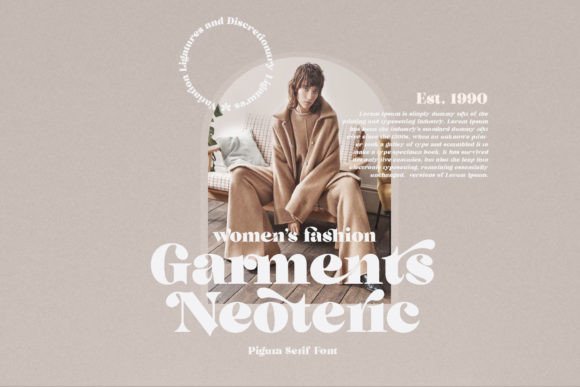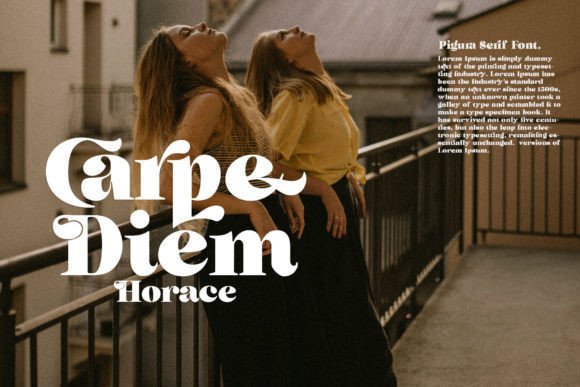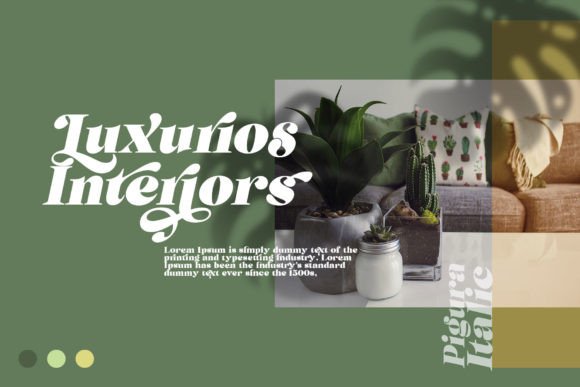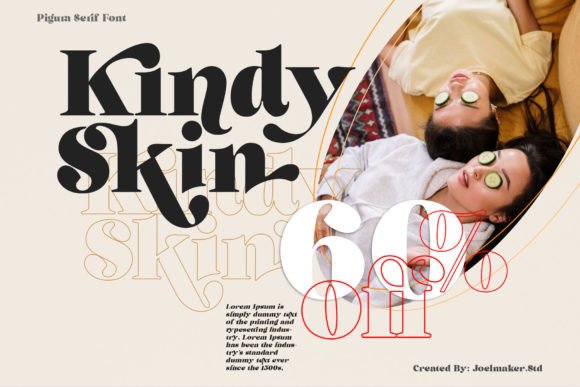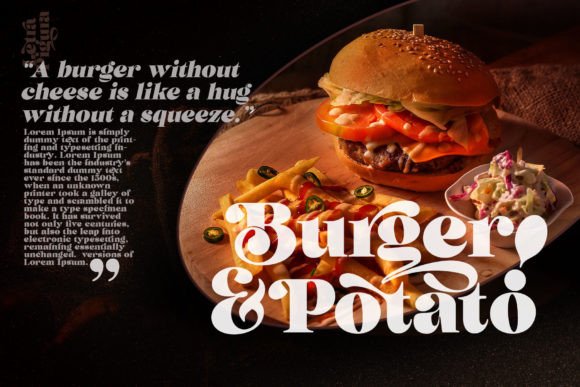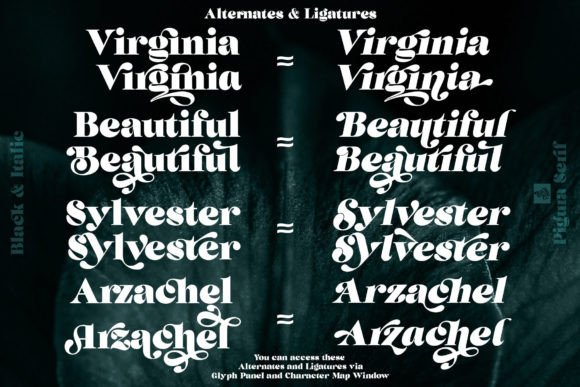
Introduction to Pigura Font
Have you ever found yourself staring at a blank page, waiting for inspiration to strike? It’s a moment we’ve all been in – the blank slate, the blinking cursor, and the nagging question: “What’s the perfect font to make this project shine?” For designers, this moment is a familiar hurdle, but with the right tool, it can become a stepping stone to creative genius. That’s where the Pigura Font comes in – a chic, modern font that adds a touch of sophistication and refinement to any design project.
With its elegant retro serif and artistic touch, the Pigura Font is the perfect design resource for creatives looking to elevate their work. Whether you’re working on a high-quality project or need a versatile font for a free download, the Pigura Font is a valuable asset for any designer. Its transparent background and high-quality design make it a standout choice for titles, headlines, and short phrases.
Pigura Font
- High-quality design resource ideal for creative projects, offering a unique aesthetic and style.
- Transparent background, allowing for seamless integration into various design backgrounds and compositions.
- Features a high-resolution design, ensuring crisp and clear display even at larger sizes.
- Designed with versatility in mind, making it suitable for a wide range of creative projects, from digital art to print materials.
- Perfect for designers looking for a unique and high-quality design element to elevate their creative project.
Honest Review: Pigura Font
I recently had the opportunity to work with the Pigura Font, and I must say it’s a high-quality design resource that can elevate any creative project. With its clean and elegant design, it’s perfect for a variety of uses, from branding to editorial content.
- Transparent background: This feature makes it easy to layer the font over images or other design elements.
- High-quality design: The font is well-crafted and looks great at various font sizes.
- Limited character set: The font only includes a limited number of characters, which may be a issue for designers who need to work with non-English text.
- No bold or italic versions: While the font is clean and elegant, it would be nice to have bold and italic versions for added emphasis.
Overall, I’m impressed with the Pigura Font. While it has some limitations, it’s a great design resource that can add a touch of elegance to any creative project. I’d definitely recommend it to designers looking for a high-quality, free font.
Tips for Getting the Most Out of Pigura Font
To get the most out of Pigura Font, consider the following tips:
Use a transparent background to create a seamless design experience.
Experiment with different font sizes and styles to add visual interest to your design.
Combine Pigura Font with other design elements, such as images and graphics, to create a unique and engaging design.
Common Use Cases for Pigura Font
Pigura Font is a versatile design resource that can be used in a variety of creative projects, including:
Graphic design
Web design
Print design
Branding and marketing materials